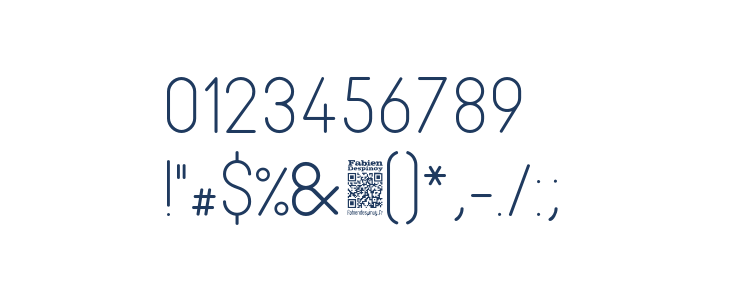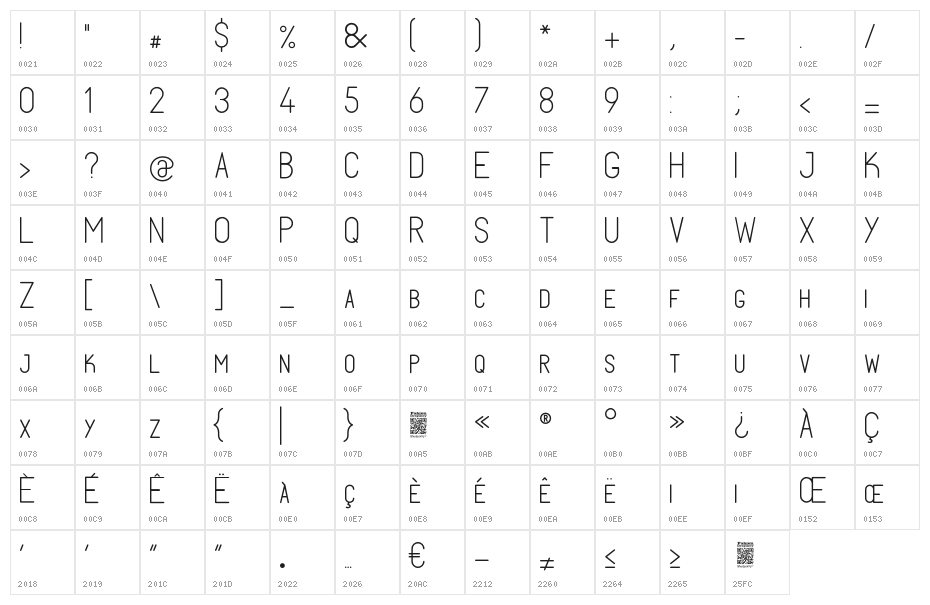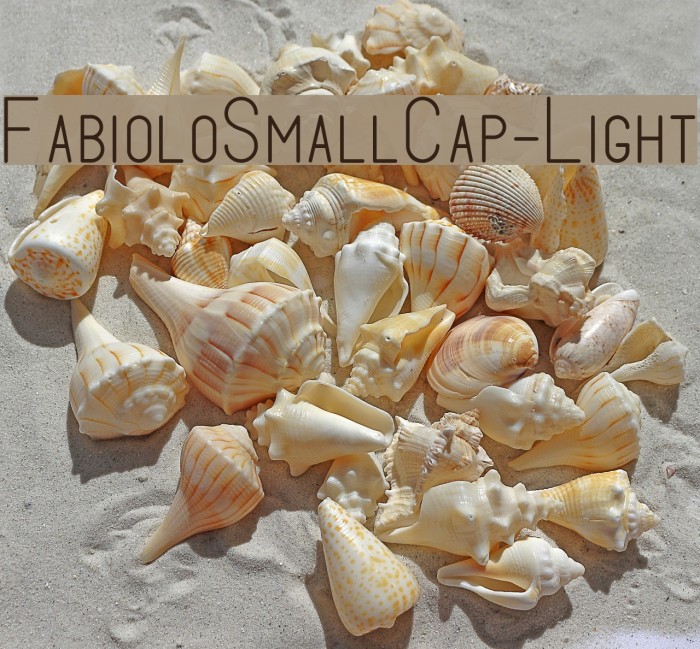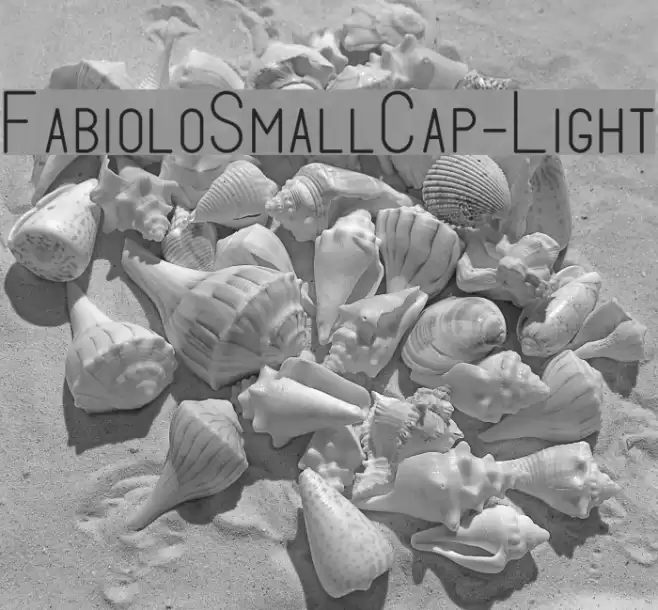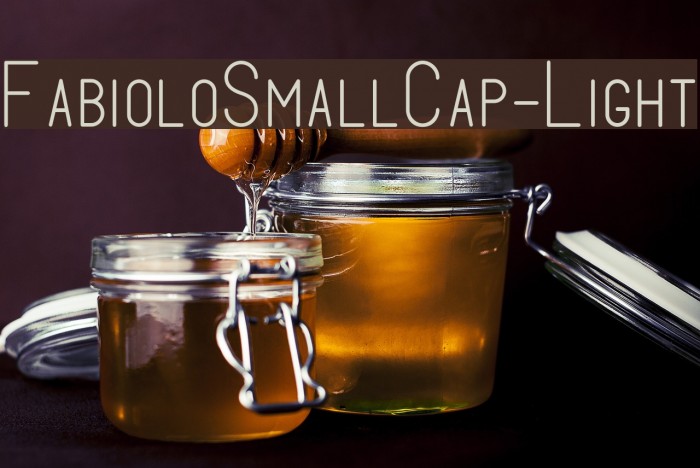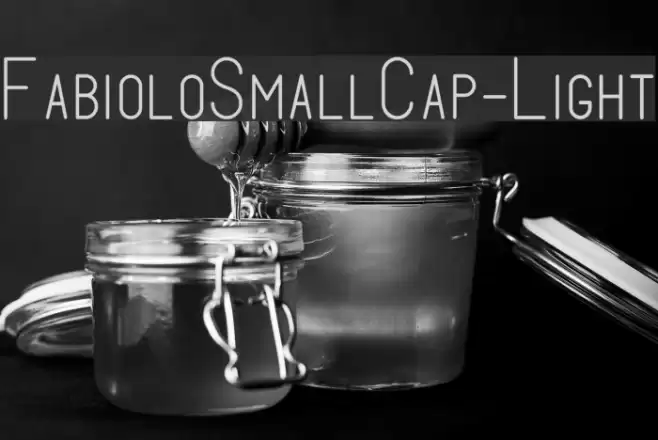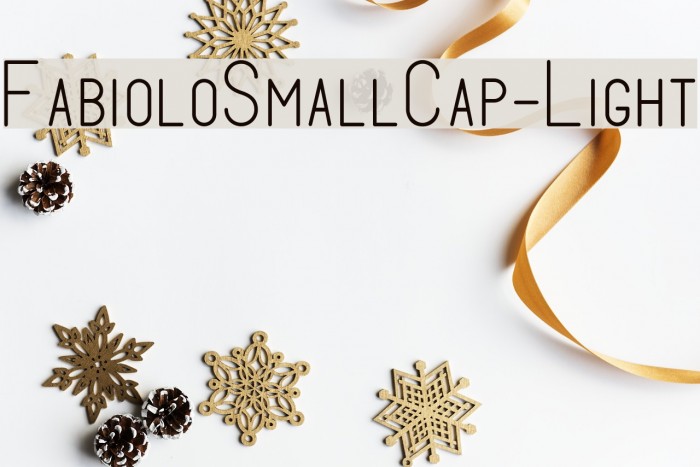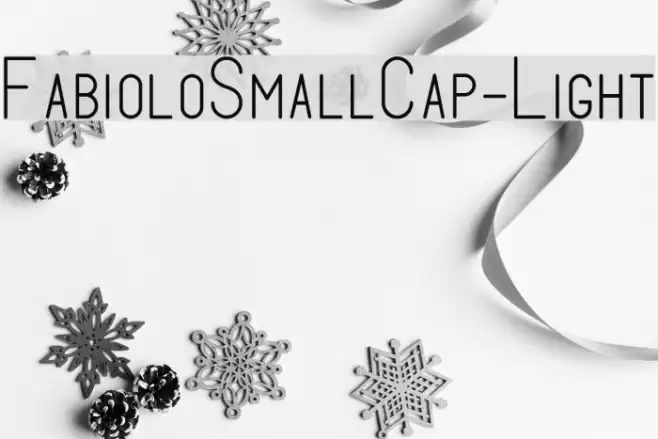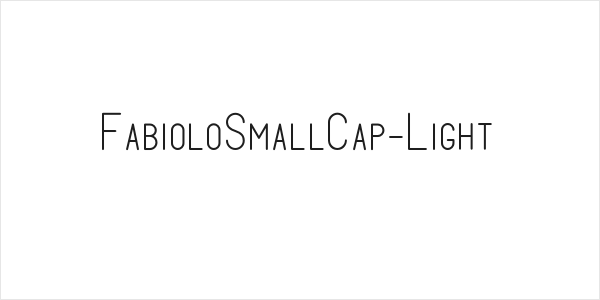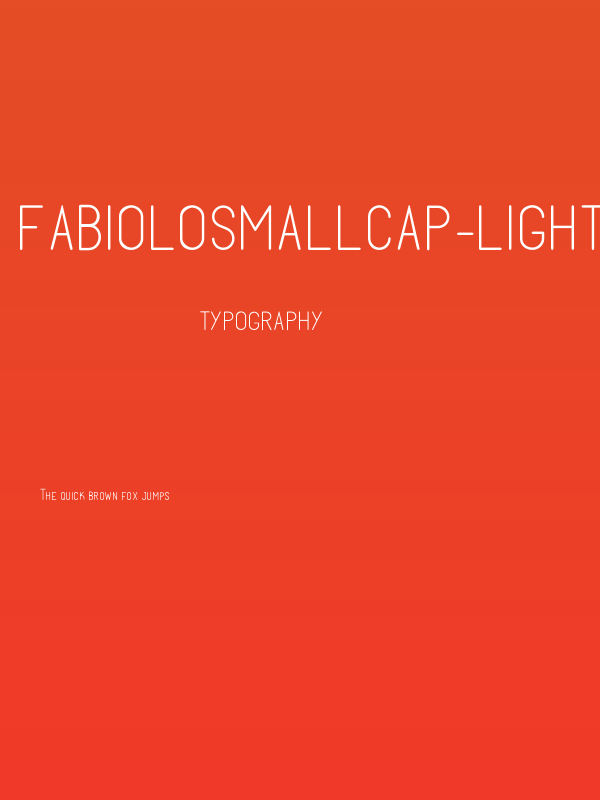
FabioloSmallCap-Light Font
FabioloSmallCap-Light Description
This font features a clean and modern sans-serif style with a light weight, offering a sleek and minimalist appearance. The characters are tall and narrow, providing a condensed look that is both elegant and functional. The uniform stroke width contributes to a low contrast, enhancing readability while maintaining a sophisticated aesthetic. The uppercase and lowercase letters are well-proportioned, and the numerals are clear and distinct. Special characters are included, adding versatility for various design needs. This font is ideal for projects that require a contemporary and professional touch.
| Proposed Projects | Ideal for branding, editorial design, web design, and corporate communications. |